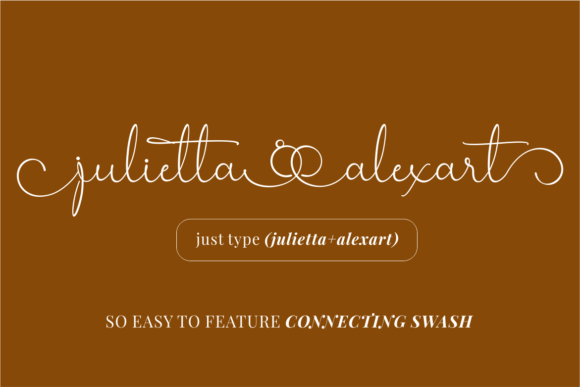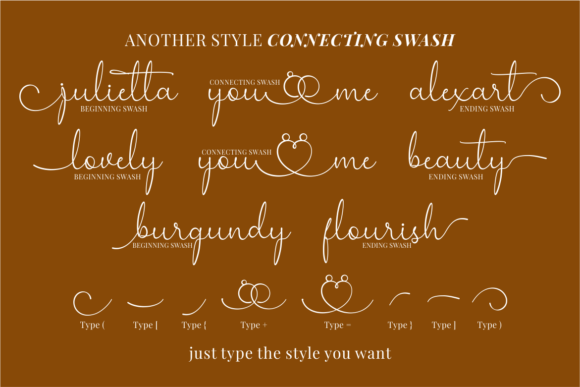
Julietta Alexart Font
db-ku.com - Script & Handwritten -- Julietta Alexart is an alluring script font created to provide an elegant vibe. Whether you’re looking for fonts for Instagram or calligraphy scripts for DIY projects, this font will turn any creative idea into a true piece of art!